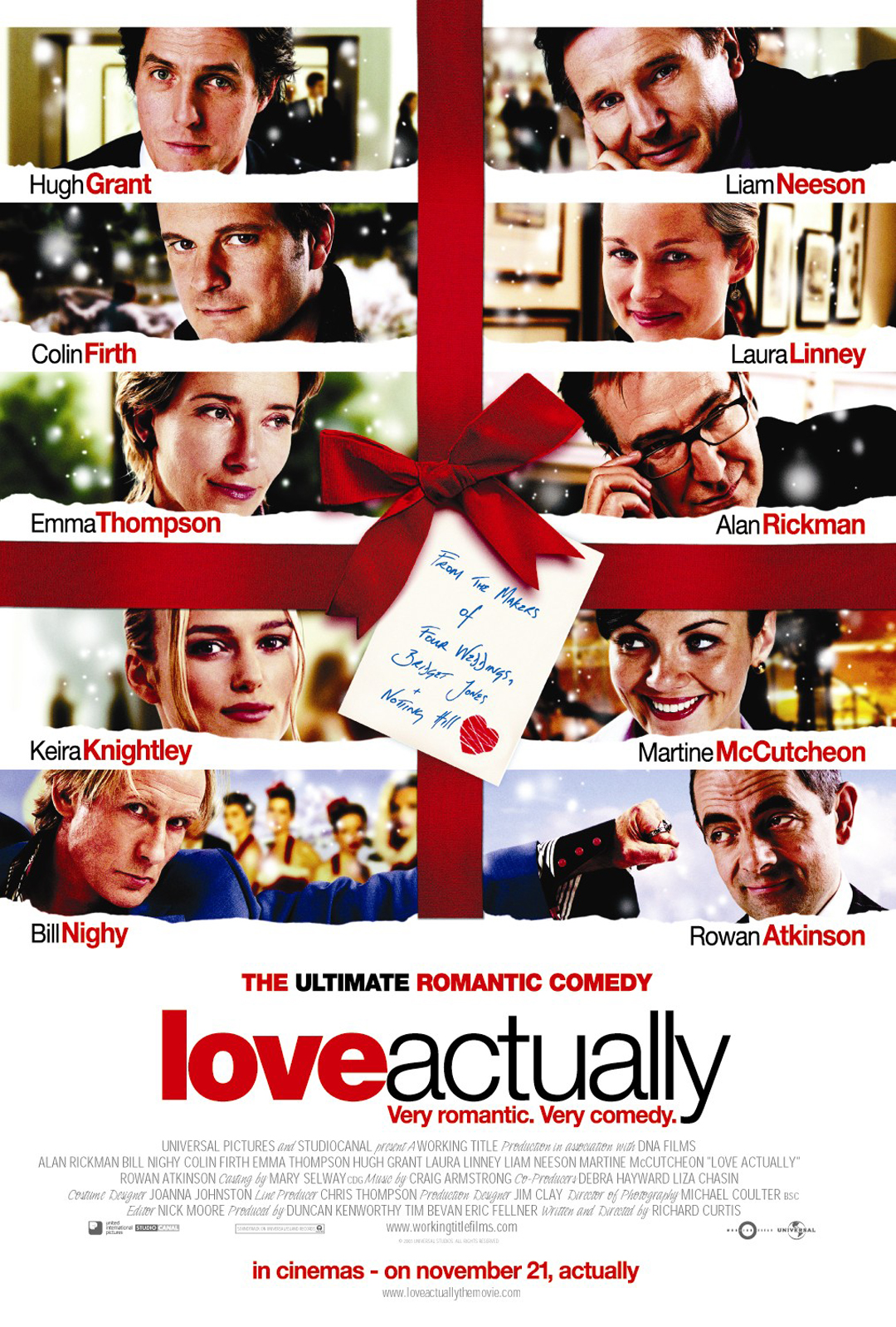
Love Actually Font
ComedyLove Actually is a 2003 Christmas themed romantic comedy film written and directed by Richard Curtis. The film features an ensemble cast, including Hugh Grant, Liam Neeson, and Keira Knightley.
The poster for the movie features the title, "Love Actually", in two variants of the Helvetica font. The word "Love" is in Helvetica Black and "Actually" is in Helvetica Light. Helvetica is a grotesque sans-serif typeface by Max Miedinger and was first released by Haas Type Foundry in 1957.